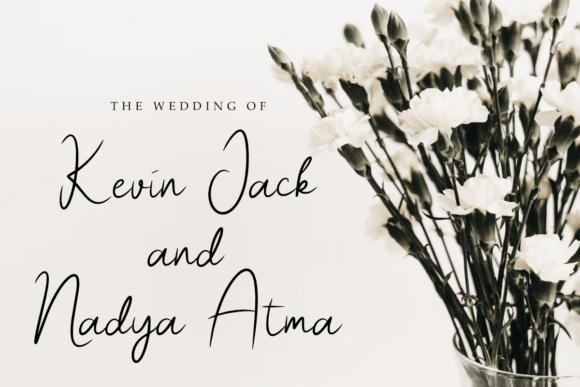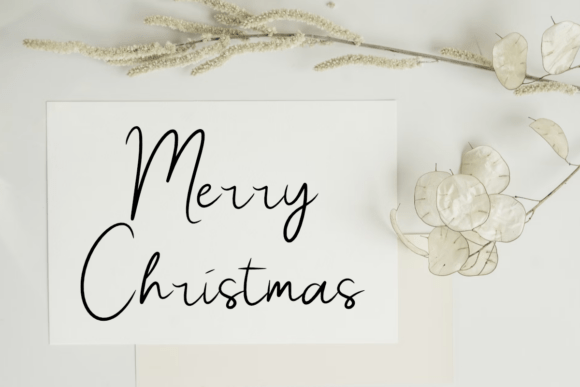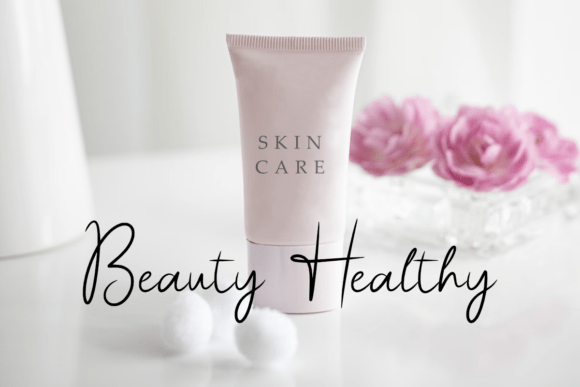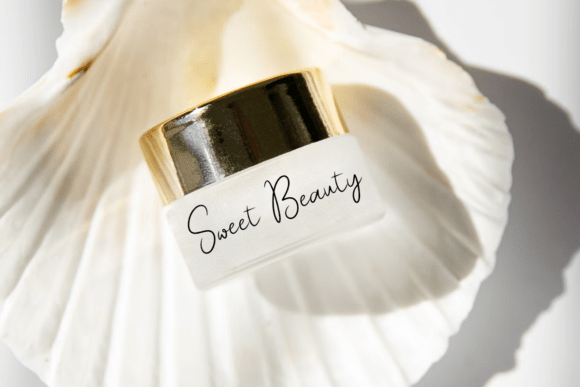
Introduction to Romance Birthday Font
As a designer, there’s nothing quite like the thrill of bringing a creative project to life. For me, it often starts with a spark of inspiration – perhaps a beautiful sunset, a heartfelt message, or a cherished memory. Today, I’m excited to share with you one of my favorite design resources that never fails to evoke a sense of romance and whimsy: the Romance Birthday Font.
With its elegant, handwritten style and delicate strokes, this font is a timeless treasure that’s perfect for adding a personal touch to your designs. Whether you’re working on a wedding invitation, a birthday card, or a social media post, the Romance Birthday Font is sure to bring a touch of magic to your project. And the best part? It’s available for free download, making it an accessible and valuable resource for designers of all levels.
Key Features of Romance Birthday Font
- Unique, hand-drawn design with a touch of elegance, perfect for creative projects and romantic occasions.
- Designed to be versatile and stylish, making it perfect for birthday invitations, wedding invitations, and other romantic events.
Honest Review: Romance Birthday Font
As a designer, I’m always on the lookout for unique and high-quality design resources to elevate my creative projects. Recently, I stumbled upon the Romance Birthday Font, and I’m excited to share my honest review with you.
- ✨ Elegant and cursive design style that’s perfect for romantic and birthday-themed projects
Any limitations:
- ⚠️ Limited character set, which may not be suitable for longer text-based projects
- ⚠️ Not ideal for modern or minimalist designs, as it has a more traditional and ornate feel
Overall, I’m impressed with the Romance Birthday Font’s unique design and high-quality files. While it may have some limitations, it’s an excellent choice for designers working on romantic or birthday-themed projects, especially those who want a free design resource with a transparent background.
Tips for Getting the Most Out of Romance Birthday Font
Use Romance Birthday Font for creative projects that require a touch of elegance and sophistication. You can also use it for free download and incorporation into your high-quality design resource. Experiment with different font sizes and colors to achieve the desired effect.
Romance Birthday Font is ideal for use in wedding invitations, anniversary cards, and other romantic occasions. You can also use it for design projects that require a vintage or distressed look. With its high-quality design and transparent background, Romance Birthday Font is a valuable resource for designers and non-designers alike.